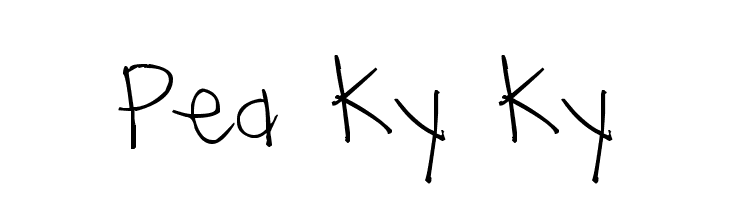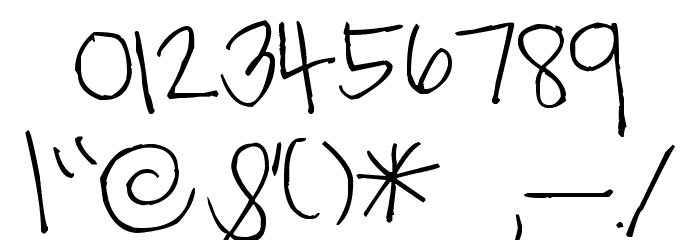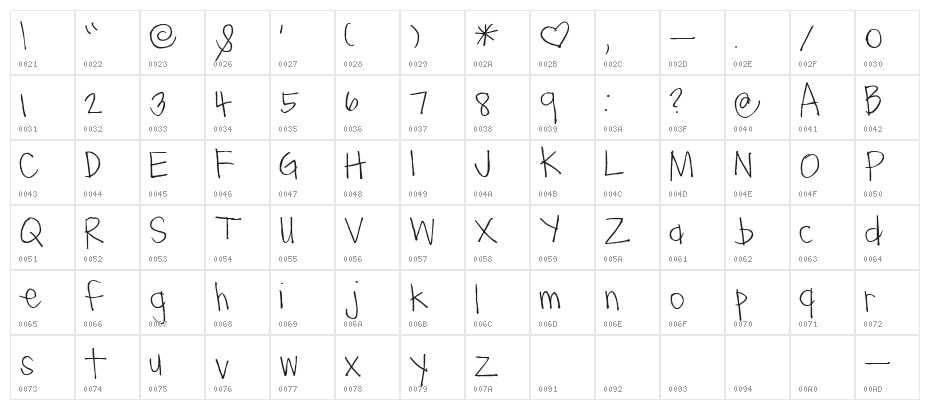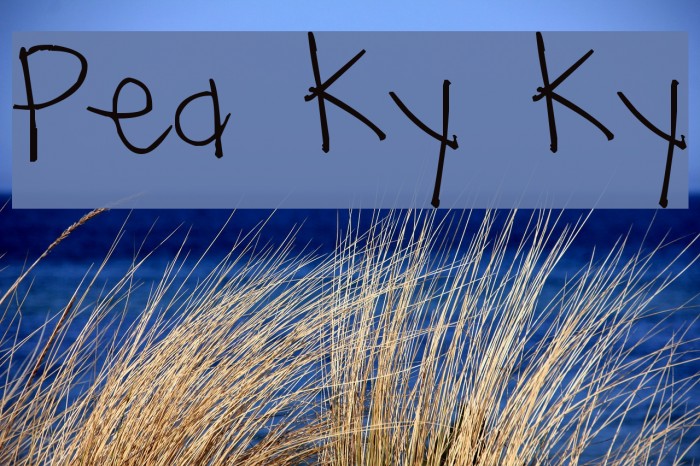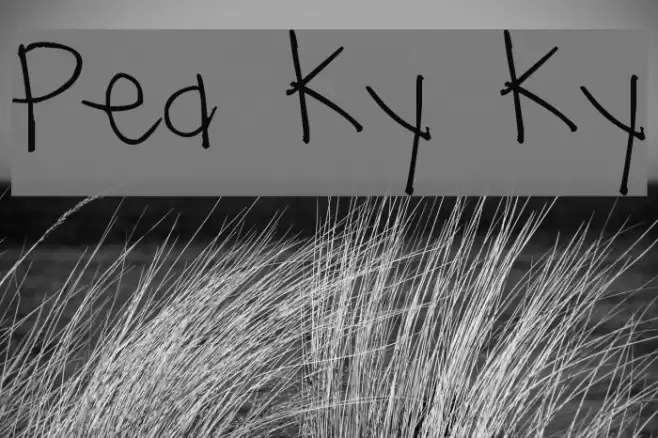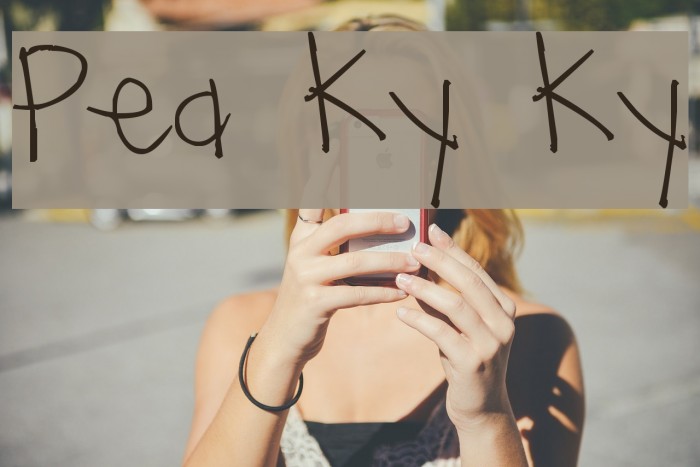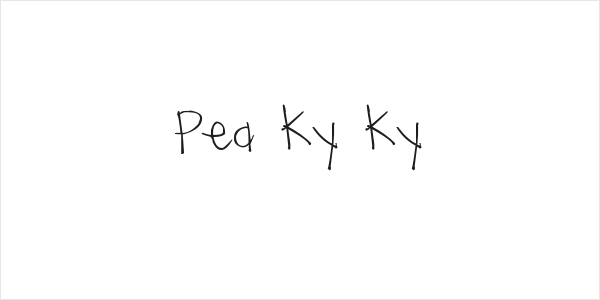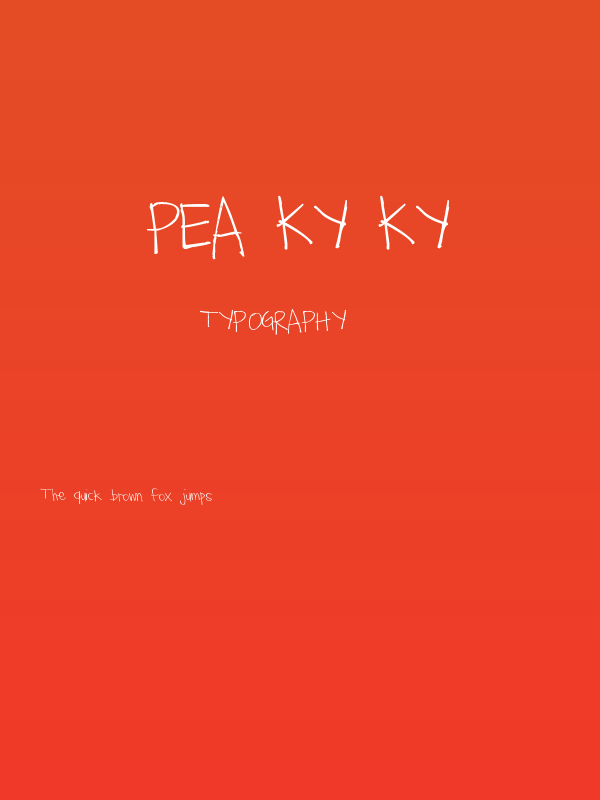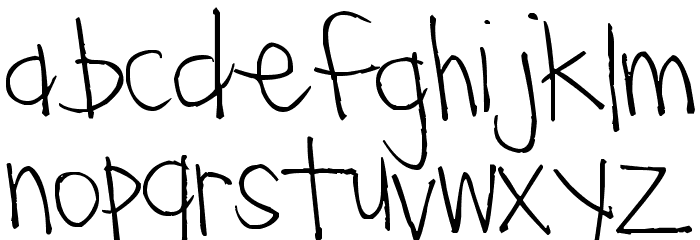
Pea Ky Ky Font
Pea Ky Ky Description
This font exudes a playful and casual handwritten style, characterized by its irregular and slightly uneven strokes that give it a personal touch. The letters are tall and slender, with a slight tilt that adds to the informal and friendly appearance. The uppercase and lowercase letters maintain a consistent style, with rounded edges and a natural flow that mimics handwriting. The numbers and special characters follow the same aesthetic, ensuring a cohesive look across all elements. This font is perfect for projects that require a personal, approachable, and informal feel.
| Use Case | Headlines, Informal text, Personal notes |
| Proposed Projects | Ideal for greeting cards, personal notes, children's books, and informal branding projects. |